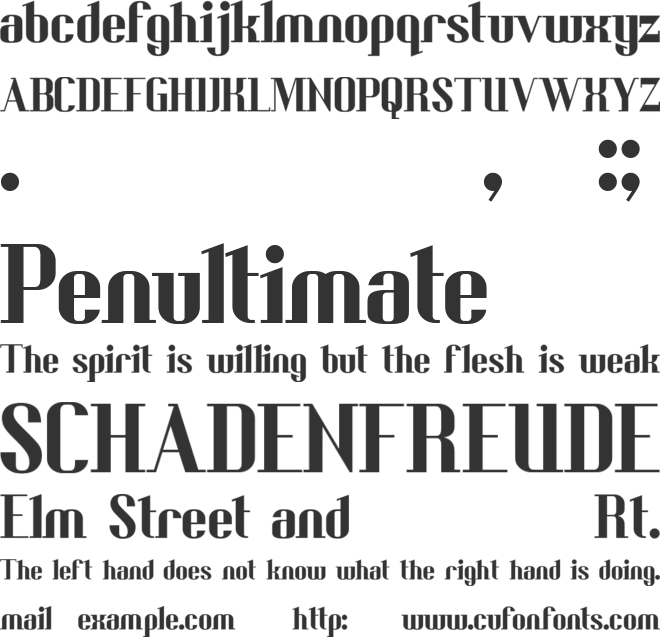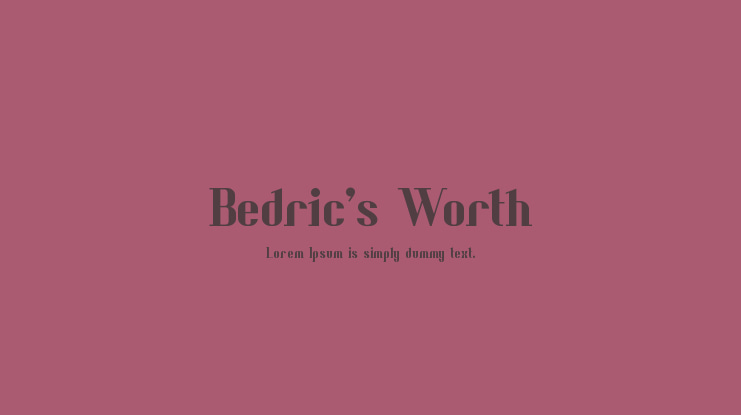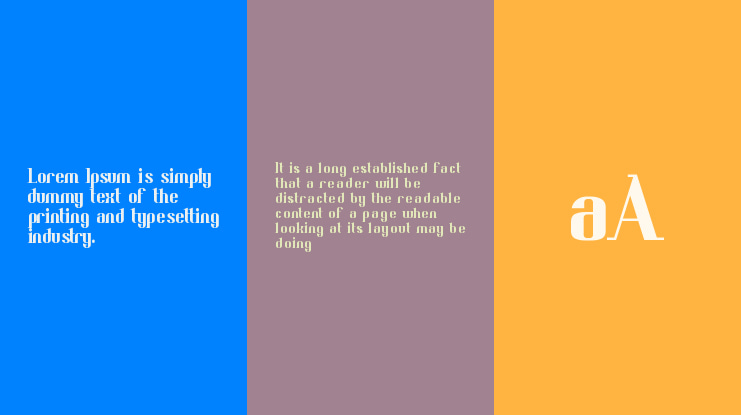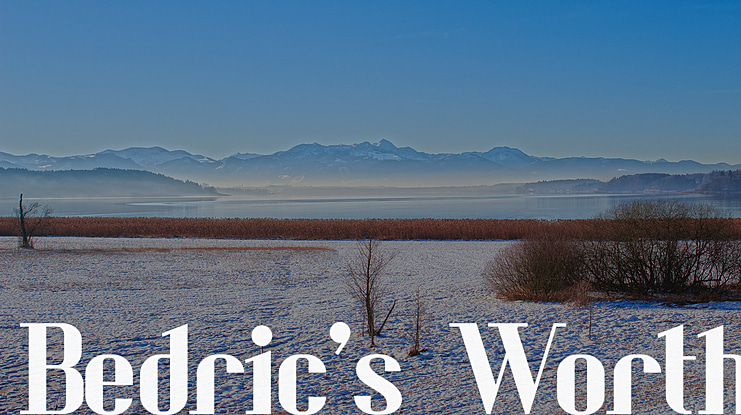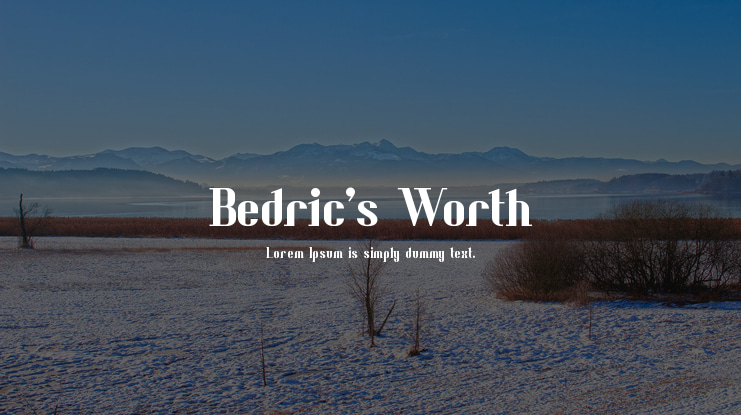
Bedric's Worth Font
This font started out as a logo design project, which required only a few letters. Once the logo was finished, I decided to create the remaining glyphs needed to complete the basic character set, which is why this font only has upper and lower case letters, but no numerals.